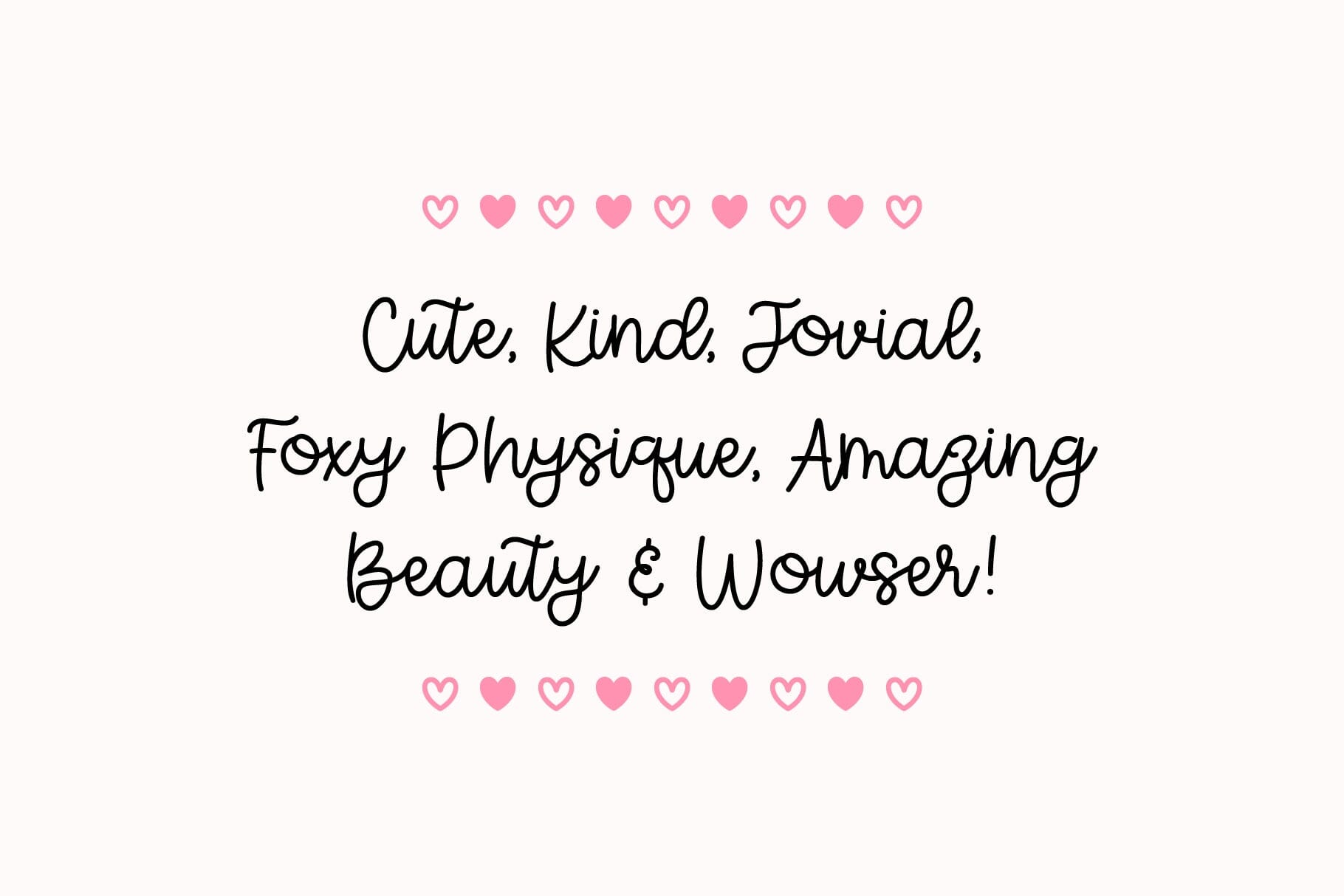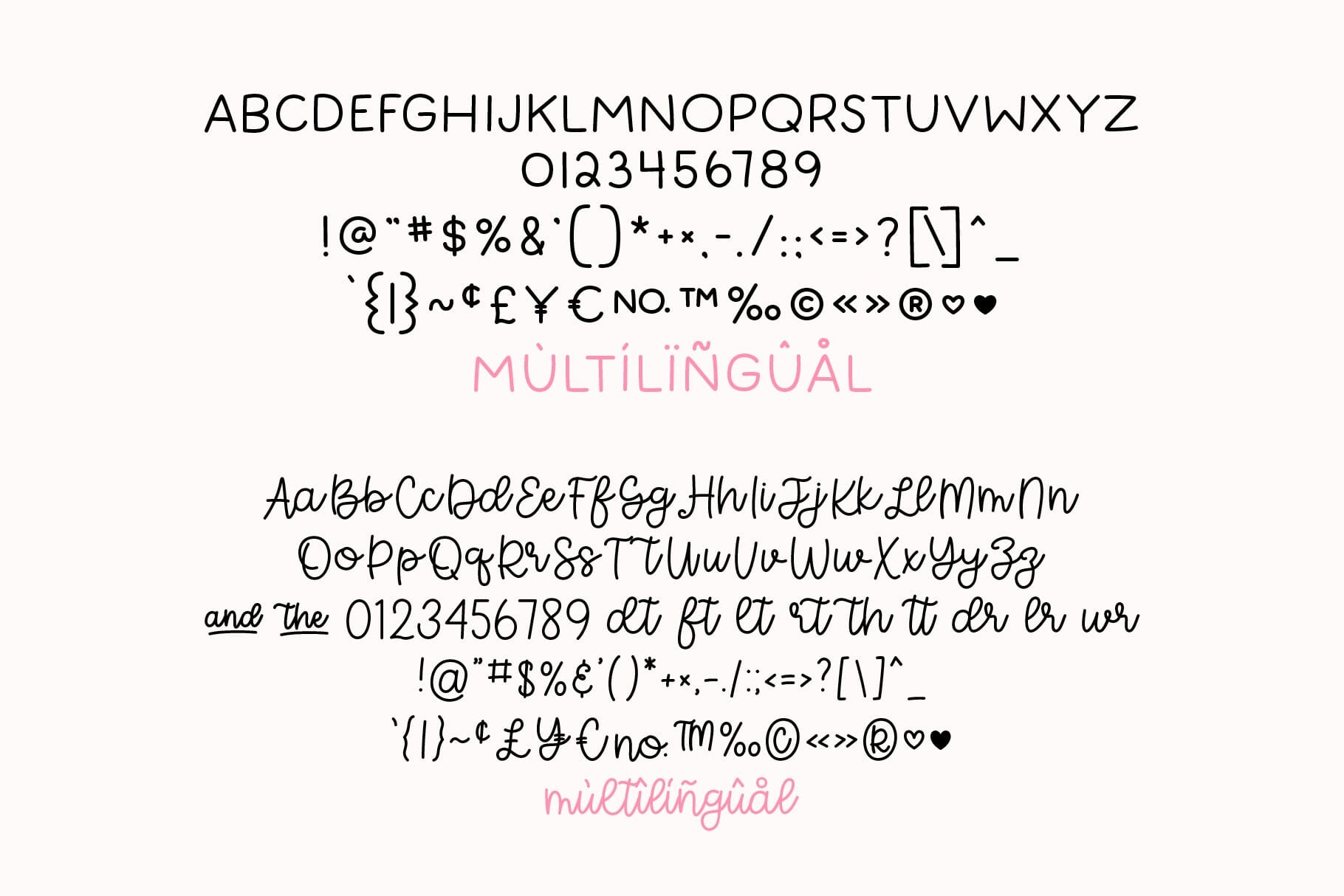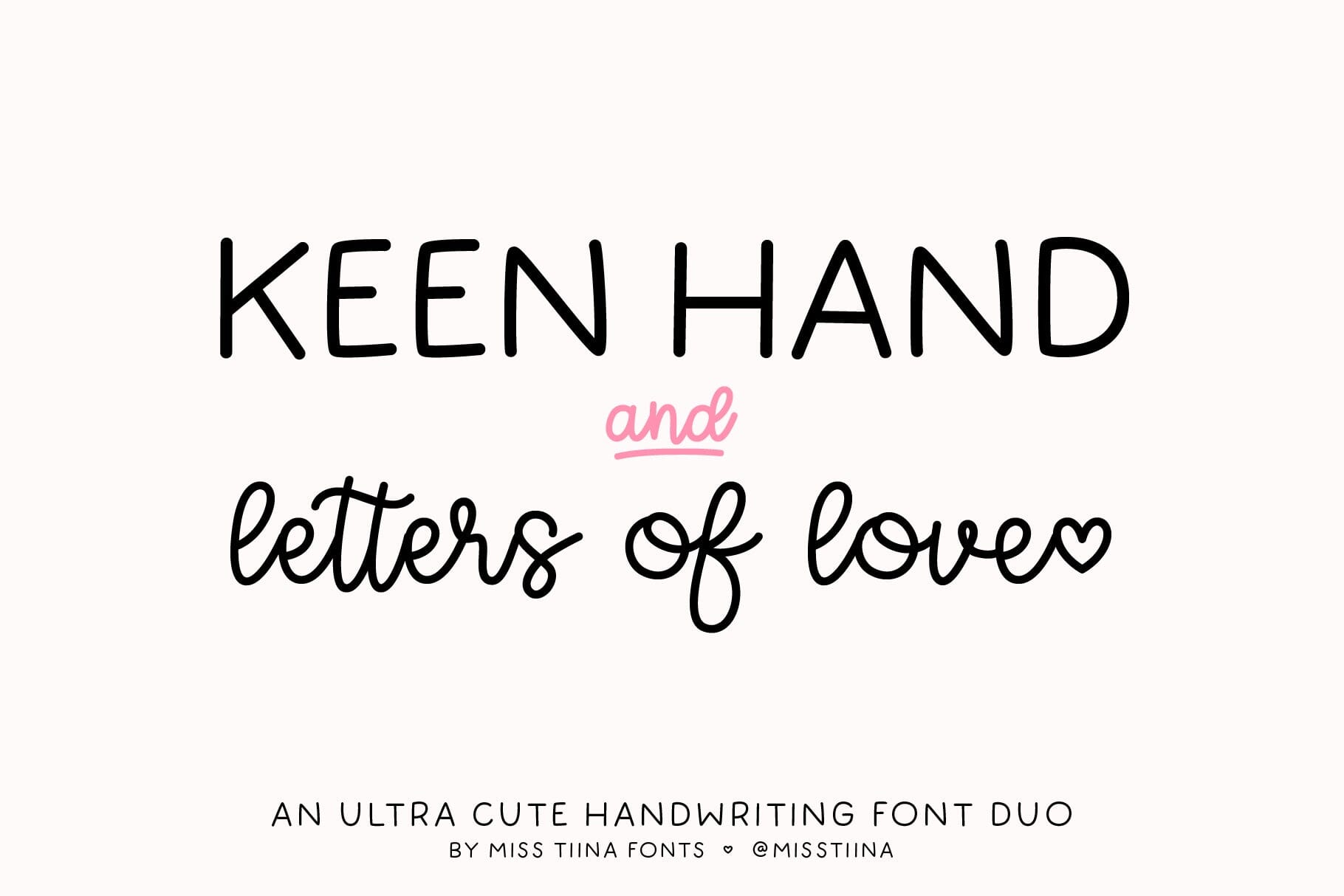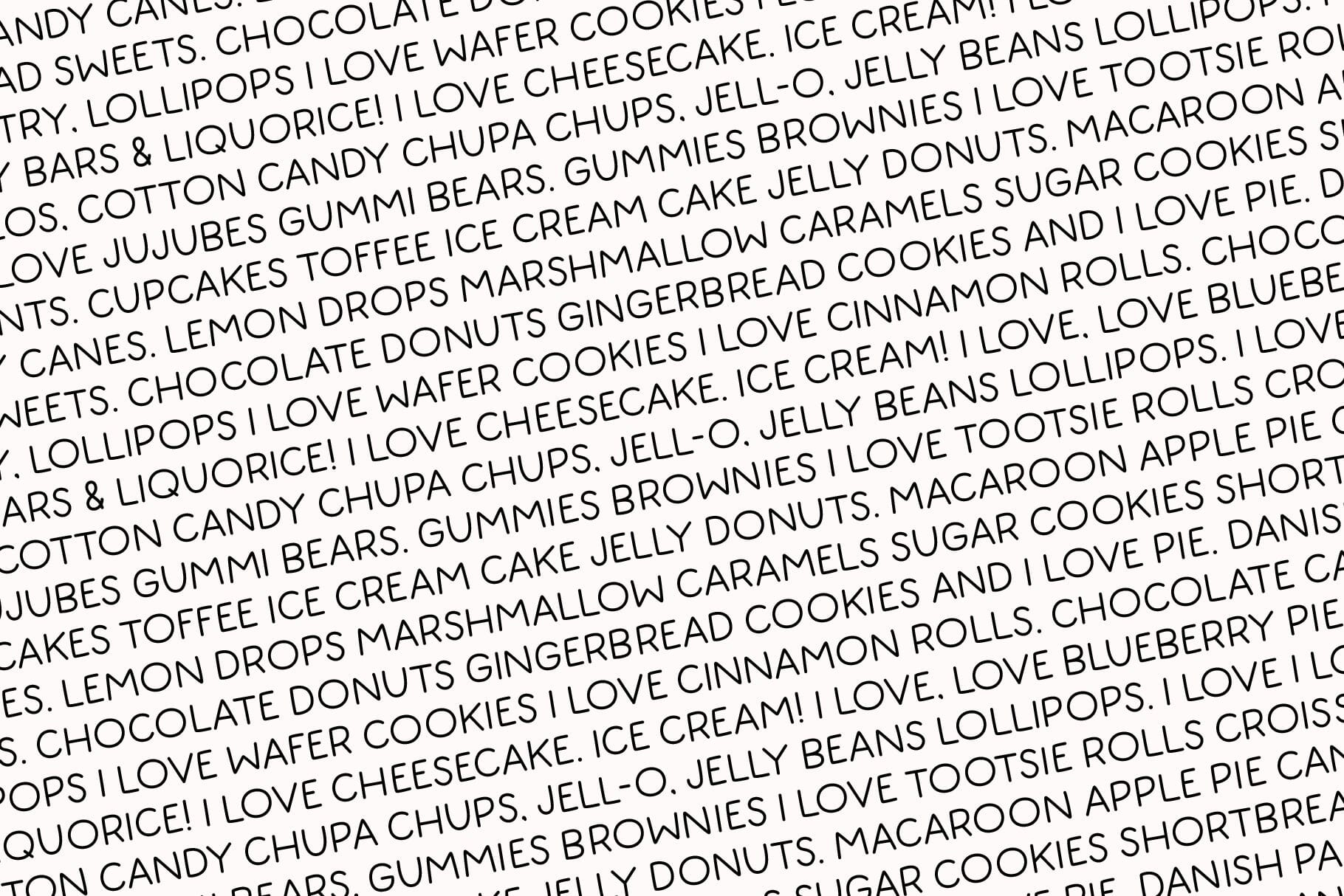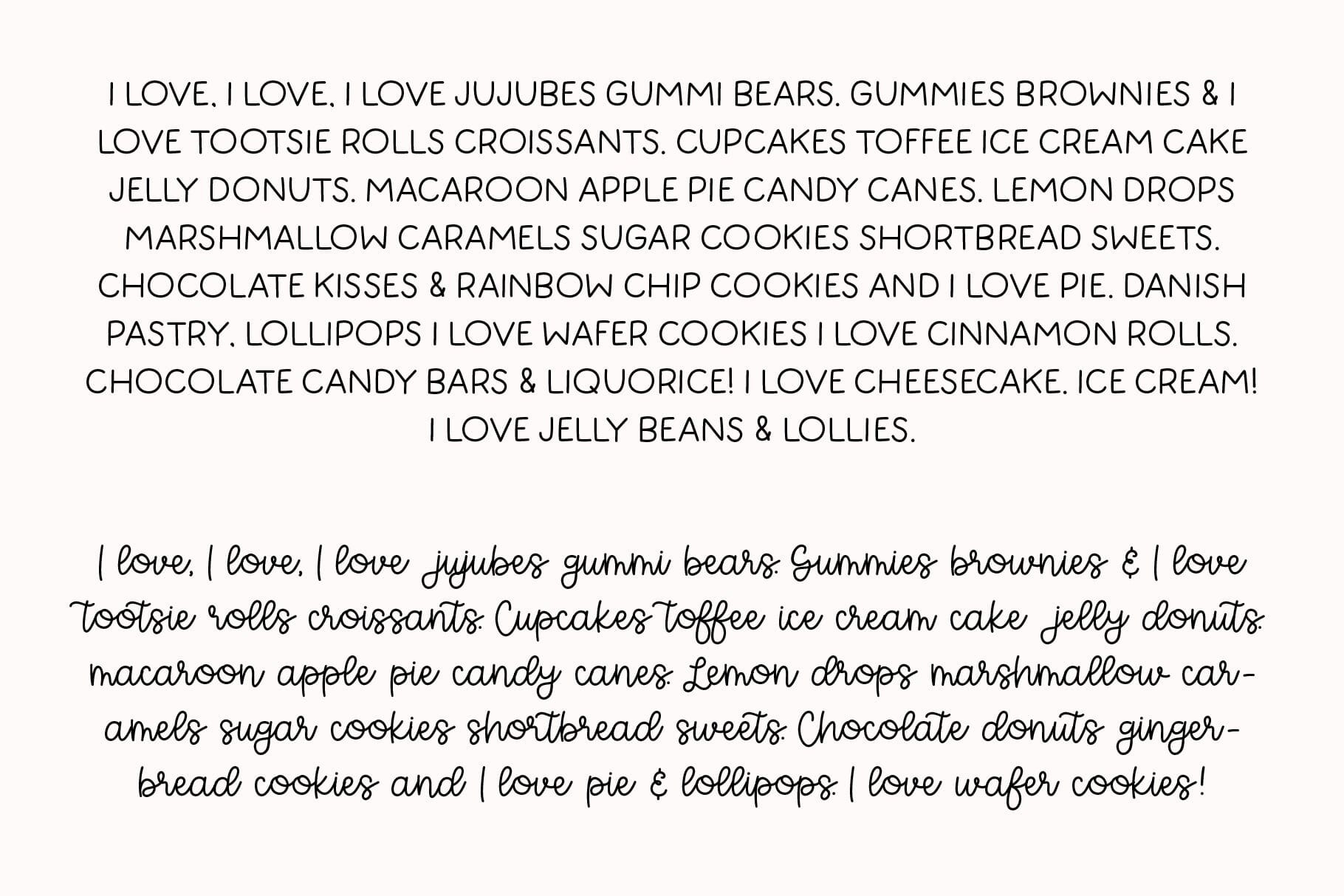
MTF Keen Hand & Letters of Love – Font Duo
Experience the captivating blend of style and persuasion with the Keen Hand + Letters of Love Duo. This dynamic font pairing encapsulates two visually stunning handwritten fonts; the bold and alluring all-caps Keen Hand and the elegantly flowing Letters of Love script. Its versatility makes it an ideal choice for a myriad of endeavors — from product packaging to posters, from stationery to the unexpected. This duo weaves together a touch of professional charm and connection, adding a visual appeal that’s both striking and memorable. Your projects will come alive with the Keen Hand + Letters of Love Duo.